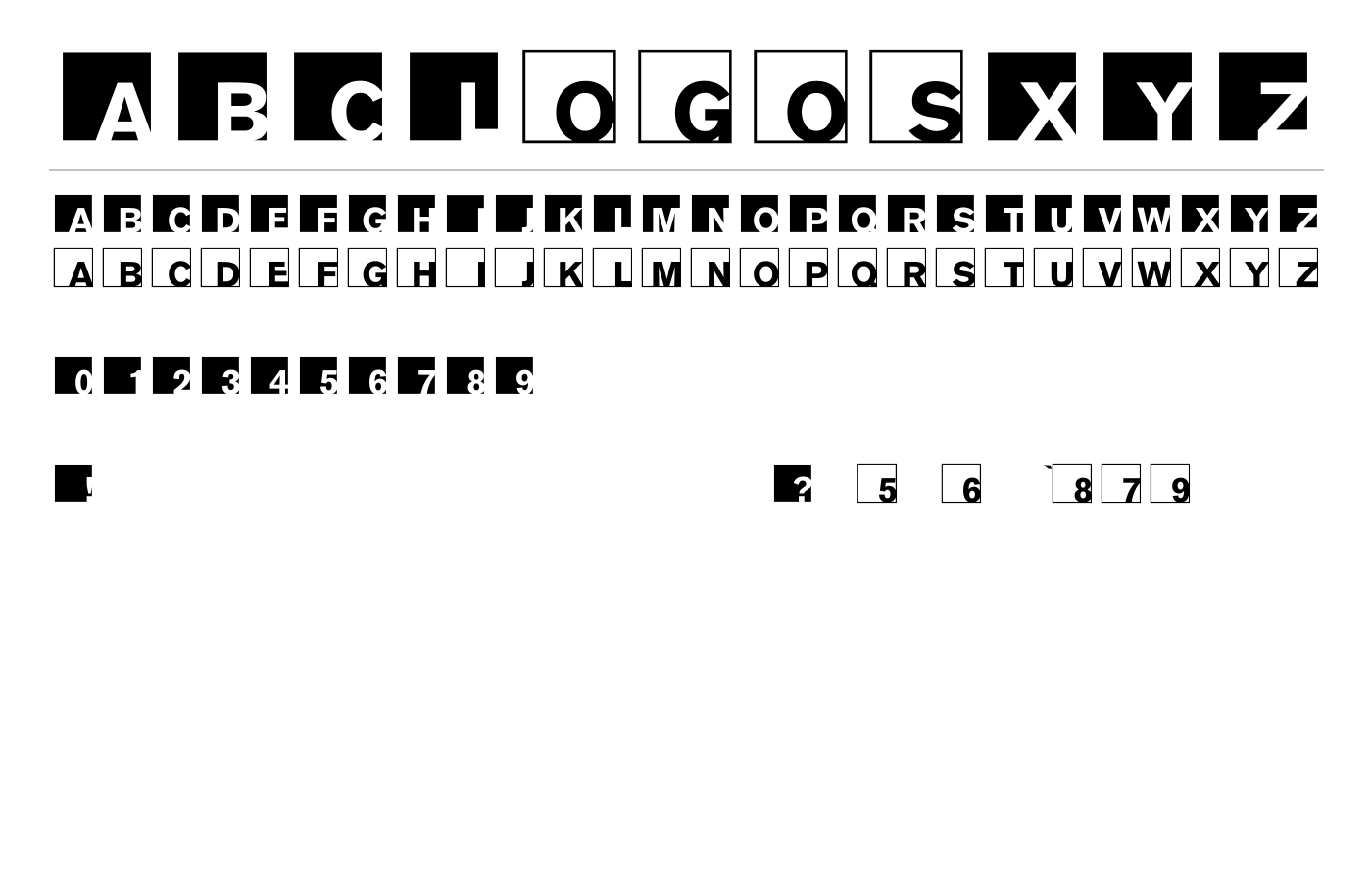
ABCLogosXYZ Font is a bold, geometric sans serif typeface characterized by its strong contrast between solid black and white blocks, giving it a striking and modern appearance. Its clean lines and unique interplay of positive and negative space make it perfect for impactful logos, headlines, or branding that demands attention and a contemporary edge. This font works especially well in designs aiming for a bold, graphic statement with a stylish, minimalistic vibe.
ABCLogosXYZ Font